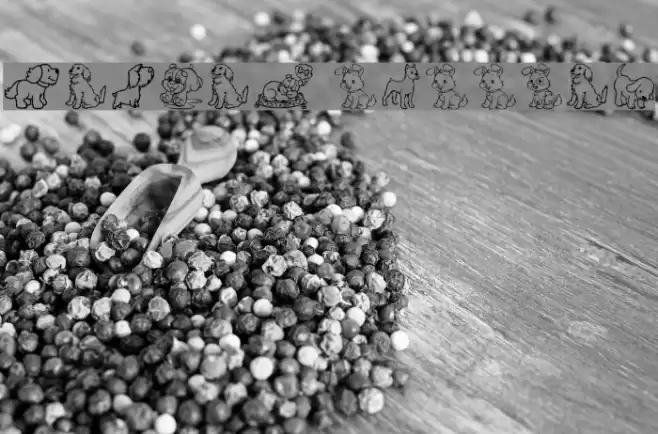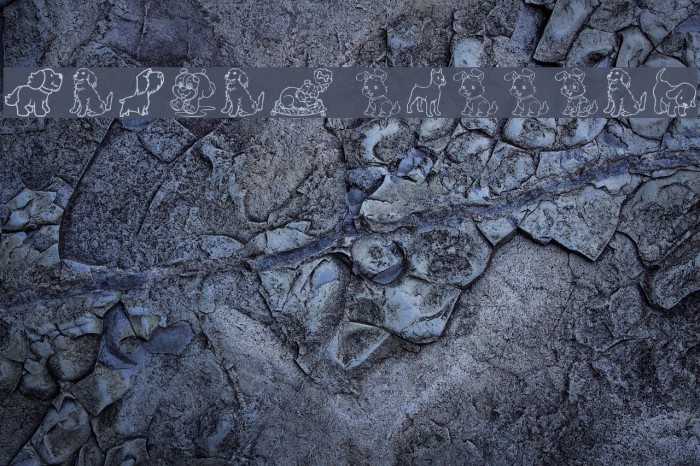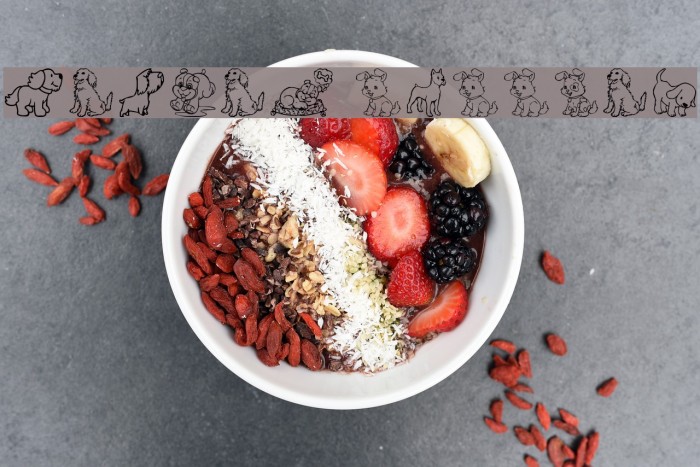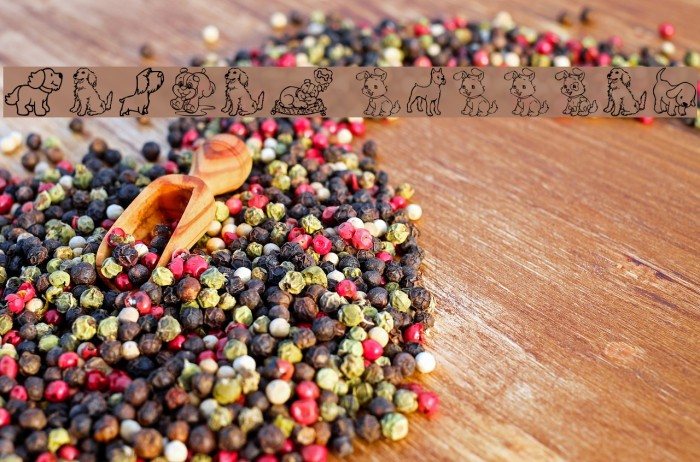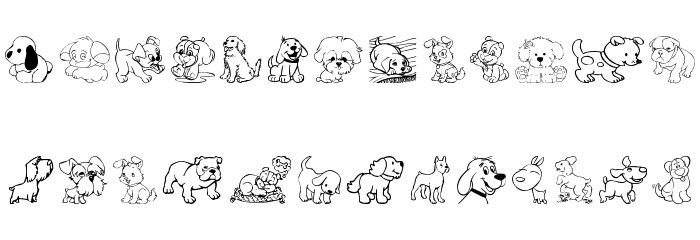
tender puppies Font
tender puppies Description
A playful and decorative font composed of hand-drawn puppy illustrations representing each character, with a whimsical and friendly style. The glyphs are highly illustrative, featuring various breeds and poses, and are outlined in black with no fill.
Hand-drawn puppy illustrations form each character in a decorative, playful style from Dingbats fonts.
- Proposed Projects: Children’s books, pet shop branding, greeting cards, playful posters, educational materials.
- Overall Style: Decorative, Playful, Whimsical
- Use Case: Logos, Headlines, Posters, Children’s content